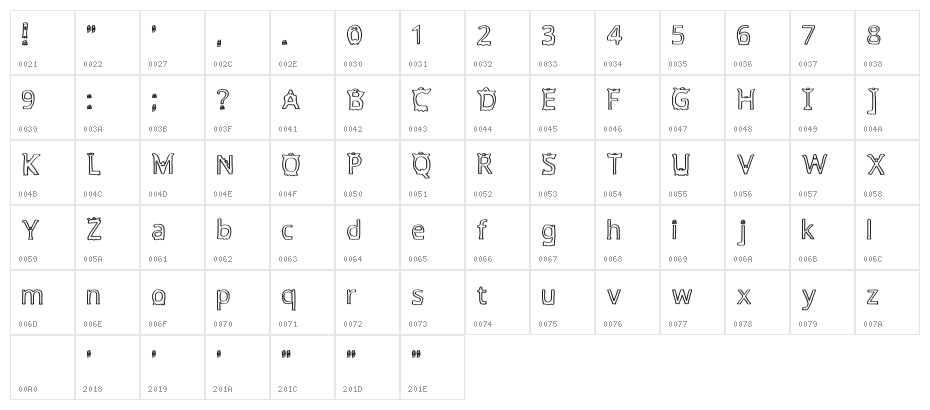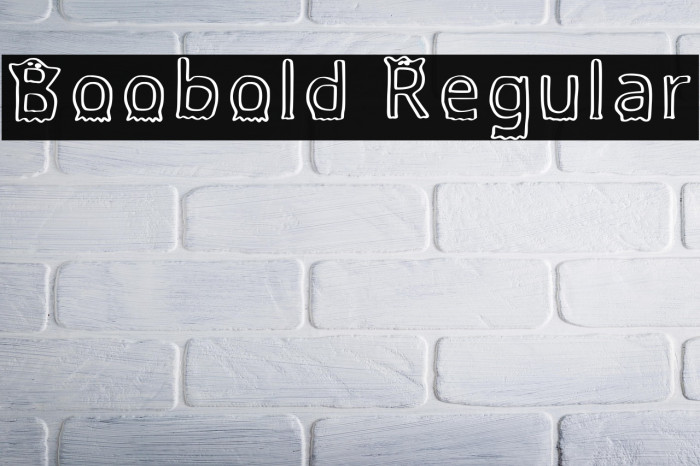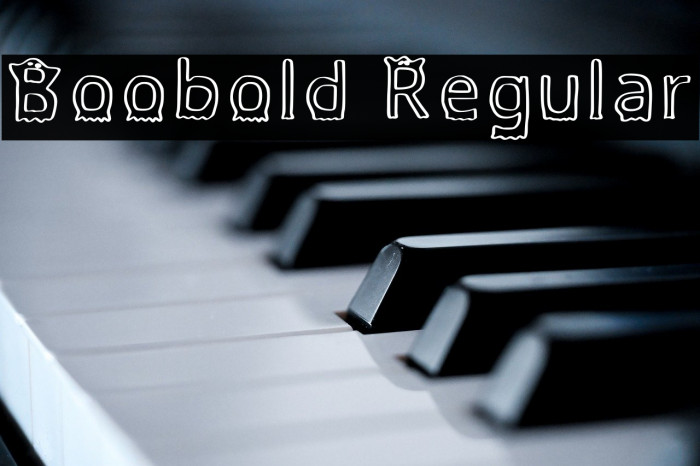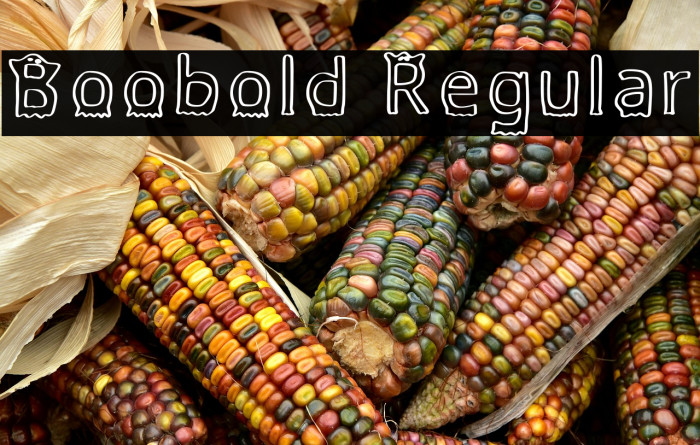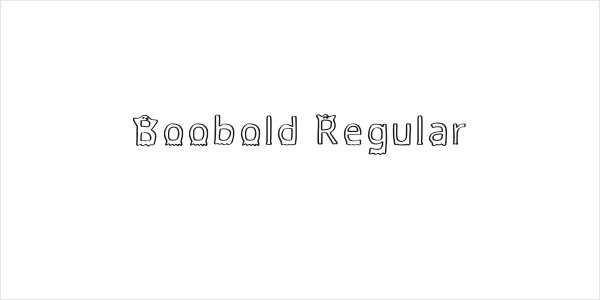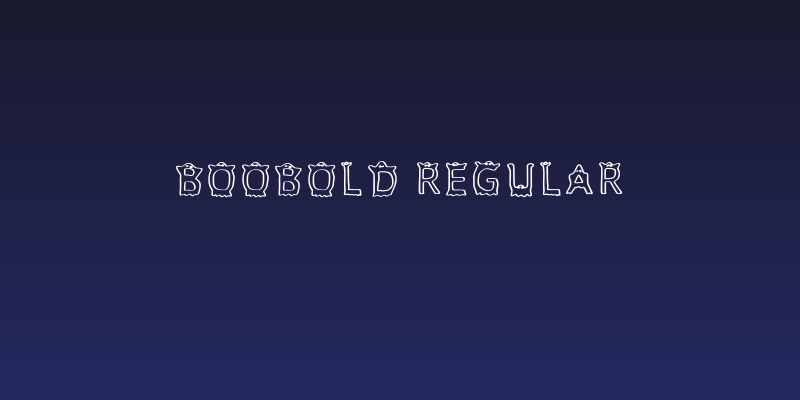
Boobold Regular Font
Boobold Regular Description
This font features a playful and quirky design, with each character resembling a ghostly figure. The letters have a hand-drawn appearance, with uneven lines and whimsical details that give them a unique personality. The uppercase and lowercase letters maintain a consistent style, while the numbers and special characters continue the theme with similar ghostly embellishments. This font is perfect for Halloween-themed projects or any design that requires a fun and spooky touch.
| Proposed Projects | Ideal for Halloween invitations, themed posters, children's books, and playful branding. |